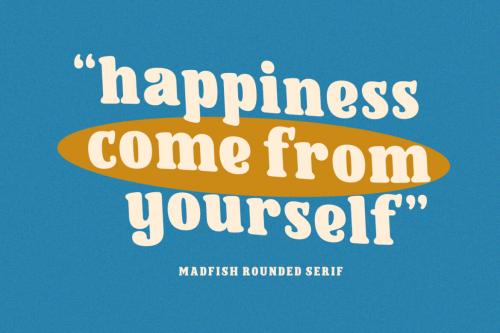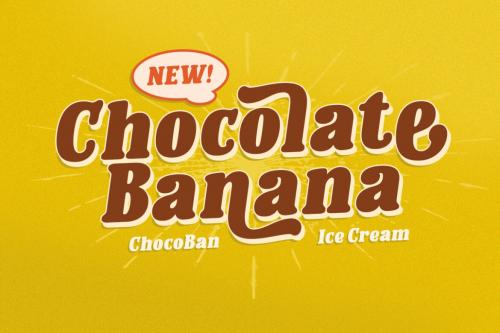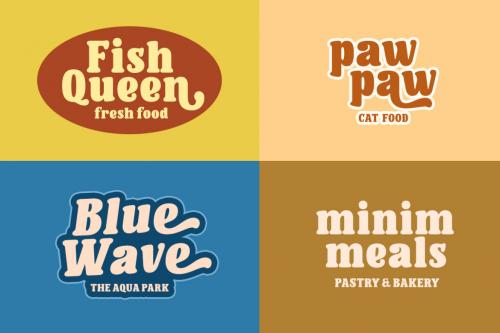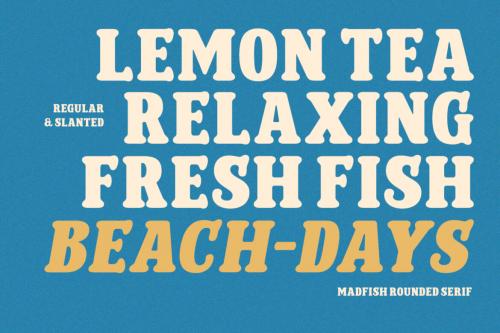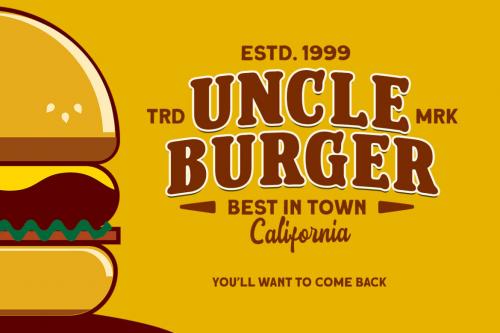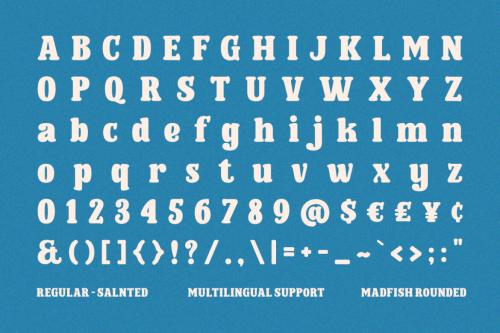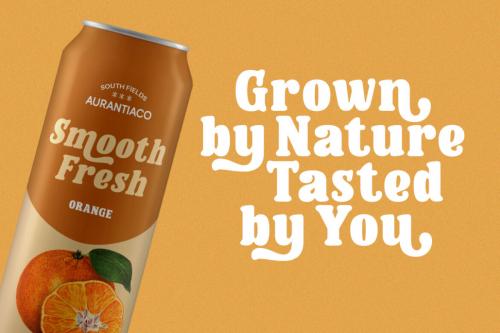
Medfish Typeface is a stunning font with a unique combination of rounded serifs and bold strokes, giving it a playful yet sophisticated look. Inspired by vintage design, this font has a retro style that adds a touch of timeless elegance to any project.This font perfectly made to be applied especially in logo, and the other various formal forms such as invitations, labels, logos, magazines, books, greeting u002F wedding cards, packaging, fashion, make up, stationery, novels, labels or any type of advertising purpose.